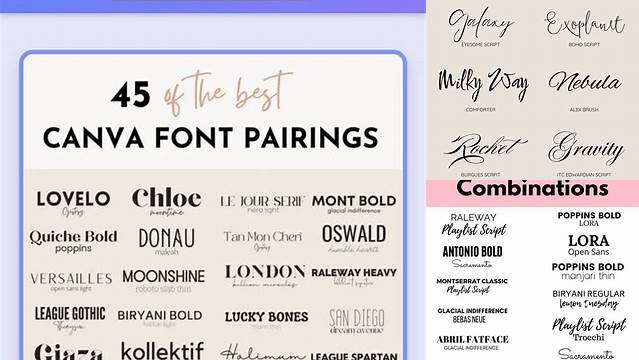
Top Free Fonts In Canva For Stunning Designs
Choosing the right font can make or break your design. Luckily, Canva offers a wide array of free fonts that can elevate your projects without costing you a dime. Let's dive into some of the best free fonts in Canva, exploring different styles and use cases to help you find the perfect match for your next design endeavor.
1. Canva's Best Sans-Serif Fonts
Sans-serif fonts are known for their clean, modern look, making them ideal for body text and headlines alike. Canva boasts several excellent free sans-serif options. When you are looking for the best free fonts in Canva, consider the readability and versatility of sans-serif options. They generally offer a cleaner, more modern aesthetic that works well across digital platforms.
Font Recommendations
- Open Sans: A classic and highly legible font, Open Sans is perfect for body text and longer paragraphs. Its simplicity ensures readability across various screen sizes, making it a reliable choice for web and print designs.
- Lato: Lato offers a slightly warmer feel than Open Sans while maintaining excellent readability. It's a great alternative for projects where you want a touch of personality without sacrificing clarity. Its balanced structure makes it suitable for both headlines and body text.
- Montserrat: For a bolder, more contemporary look, Montserrat is an excellent choice. Its geometric design commands attention, making it ideal for headings and branding materials. The font exudes confidence and modernity, perfect for businesses looking to make a strong statement.
Sans-serif fonts are generally easier on the eyes when reading large blocks of text online, so consider these for your website's body text or any digital documents.
2. The Best Serif Fonts Available for Free
Serif fonts, characterized by the small decorative strokes at the end of letterforms, lend a touch of elegance and tradition to your designs. If you need the best free fonts in Canva for a more formal or classic look, serif fonts are your go-to. They are often used in print materials and can add a touch of sophistication to your digital designs as well.
Popular Serif Choices
- Playfair Display: Playfair Display exudes sophistication and is perfect for headlines, titles, and branding materials. Its high contrast and elegant curves add a touch of luxury to any design, making it ideal for high-end brands and projects that require a refined aesthetic.
- Lora: Lora is a well-balanced serif font that works well for both body text and headings. Its contemporary yet classic design makes it a versatile choice for various projects, from blog posts to marketing materials. The font is particularly appealing for its readability and stylish appearance.
- Merriweather: Designed specifically for on-screen reading, Merriweather offers excellent readability and a pleasant reading experience. Its slightly condensed letterforms and sturdy serifs make it ideal for long-form content, ensuring readers can comfortably engage with your text.
Serif fonts can evoke feelings of trustworthiness and authority, making them suitable for businesses in fields like law, finance, and education.
3. Free Script Fonts to Use in Canva
Script fonts add a personal and artistic touch to your designs, mimicking the fluidity of handwriting. When searching for the best free fonts in Canva, don't overlook the script fonts for adding flair and personality. They are great for invitations, logos, and designs that need a touch of elegance or playfulness.
Script Font Selections
- Great Vibes: Great Vibes is an elegant and flowing script font perfect for wedding invitations, logos, and other designs that require a touch of sophistication. Its beautifully crafted letterforms and graceful curves create a sense of luxury and refinement.
- Pacifico: For a more casual and playful script, Pacifico is an excellent choice. Its rounded letterforms and friendly appearance make it ideal for branding, social media graphics, and designs that need a touch of warmth and personality.
- Dancing Script: Dancing Script offers a fun and informal feel, making it perfect for lighthearted designs and playful projects. Its varying letter sizes and bouncy baseline create a dynamic and engaging visual experience.
Use script fonts sparingly to maintain readability and ensure they complement the overall design. They work best for short phrases and headings rather than large blocks of text.
4. The Best Display Fonts that are Free
Display fonts are designed to grab attention and make a statement. These fonts are perfect for headings, posters, and any design element that needs to stand out. When seeking the best free fonts in Canva, explore display fonts to add visual impact.
Recommendations for Display Fonts
- Bebas Neue: Bebas Neue is a clean and modern sans-serif font that commands attention. Its tall and narrow letterforms make it ideal for headlines, posters, and branding materials where you want to make a strong statement.
The availability of free fonts is continually evolving. Staying updated on the best free fonts in Canva and design trends:
- New Fonts: Regularly check for new font releases.
- Design Trends: Stay updated on current design trends.
- Community: Engage with the design community to discover new fonts and techniques.